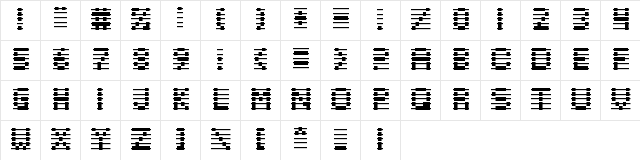
Chloriin Regular
Design Context for Chloriin
Chloriin is a composed and adaptable typeface that performs quietly and consistently across a wide range of design contexts.